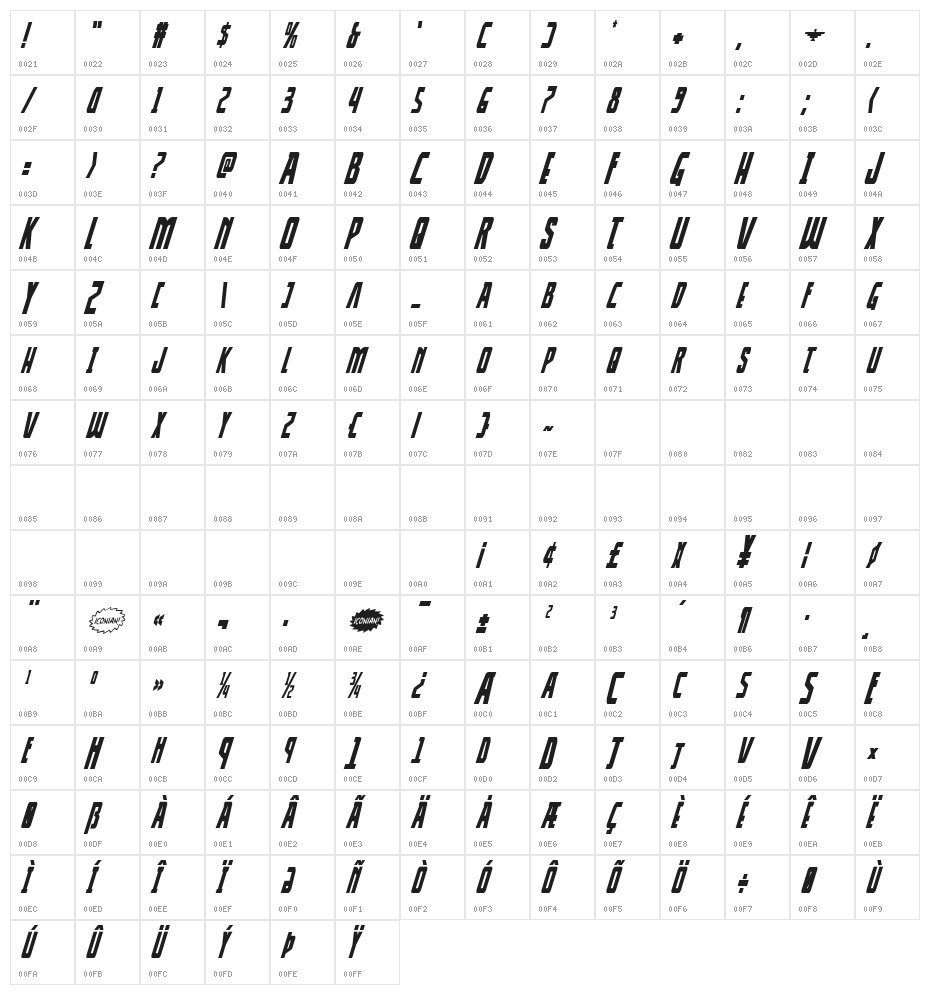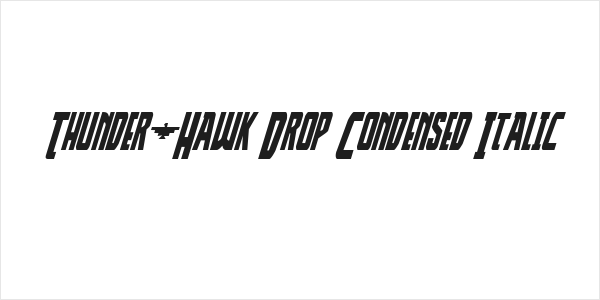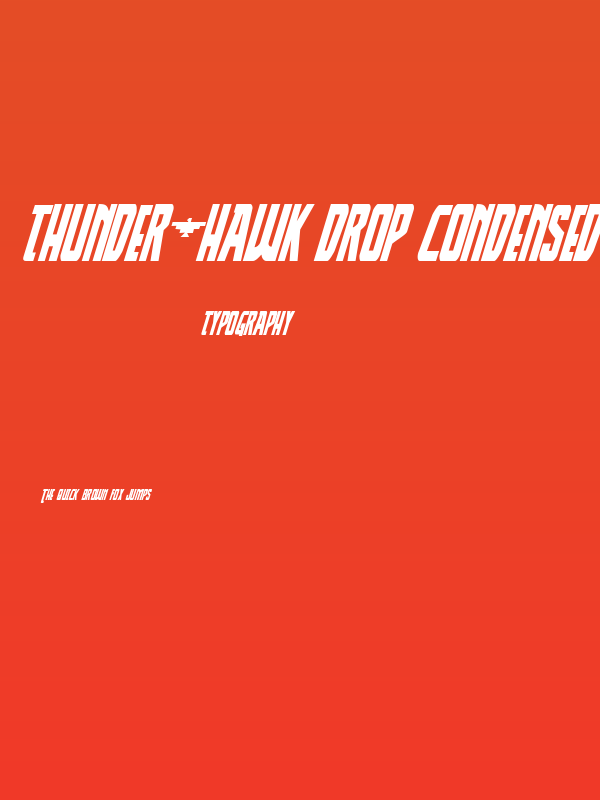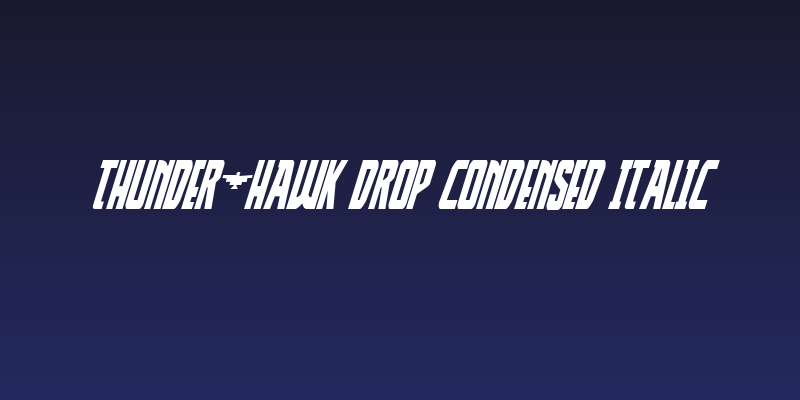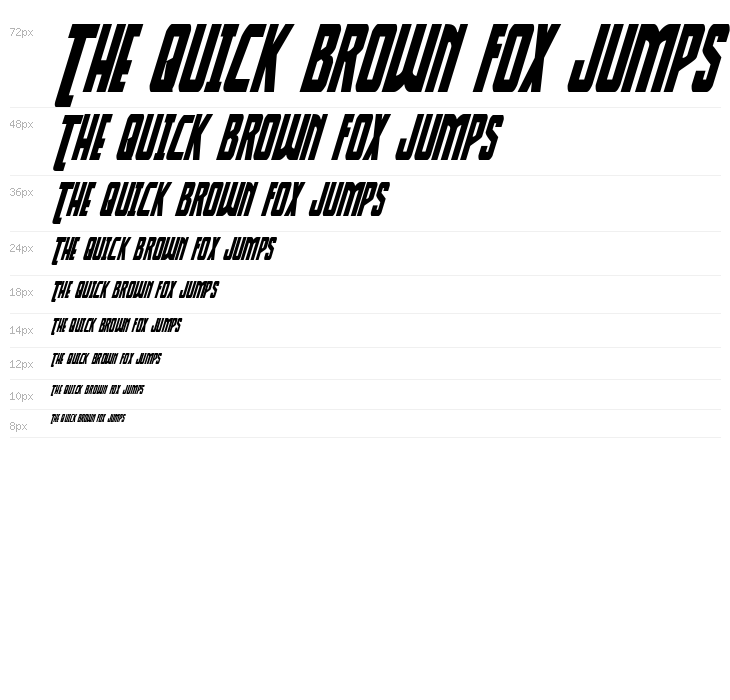
Thunder-Hawk Drop Condensed Italic Font
Thunder-Hawk Drop Condensed Italic Description
This font features a bold and dynamic design with a condensed and italicized style. The characters are sharply angled, giving a sense of movement and energy. The uppercase letters are particularly striking, with a strong presence that commands attention. The numbers and special characters maintain the same bold and angular aesthetic, ensuring consistency across all elements. The overall look is modern and edgy, making it suitable for projects that require a strong visual impact.
| Proposed Projects | Ideal for sports branding, action movie posters, dynamic logos, and edgy advertising campaigns. |